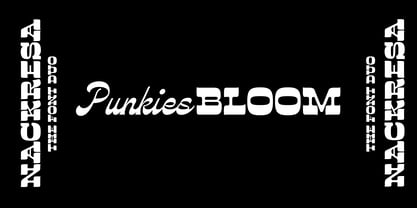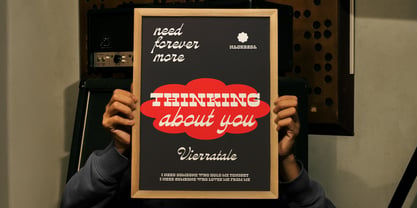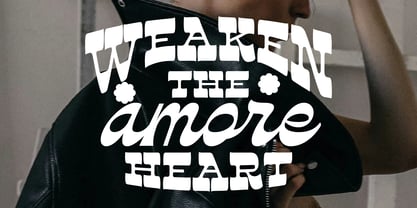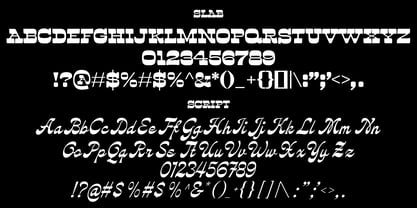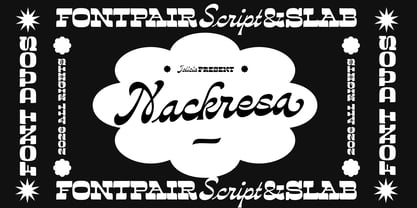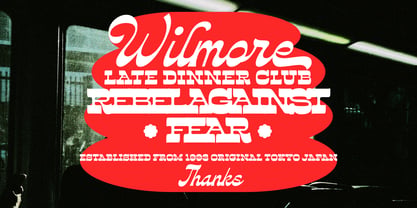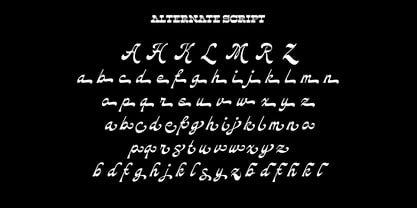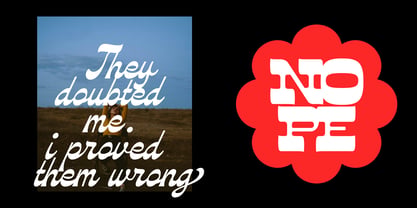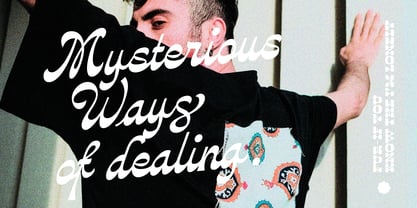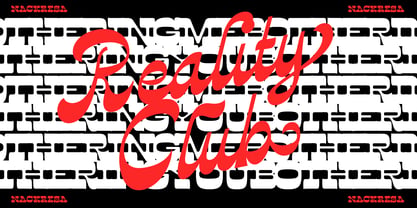
Nackresa
by Jolicia Type
The Nackresa Font Family was designed by Laire Banyu and published by Jolicia Type. Nackresa contains 2 styles and family package options. More about this family
Nackresa is a bold and expressive font duo that seamlessly combines a reverse-contrast slab serif with an elegant script, creating a powerful visual identity. This typeface is designed to balance structural strength with fluid expression, delivering a distinctive and memorable character. The slab serif style showcases a unique reverse-contrast design, resulting in an experimental, vintage-modern aesthetic that commands strong visual impact. In contrast, the flowing script introduces a soft, personal, and artistic touch, infusing emotion and personality into every composition. With its striking contrast, refined details, and unmistakable identity, Nackresa transcends the typical font; it serves as a visual statement for designers seeking to be bold, expressive, and unapologetically original. Ideal for branding, editorial design, and web applications, Nackresa is the perfect choice for those looking to make a lasting impression. This versatile font family is suitable for a variety of projects, ensuring that your designs stand out with confidence and creativity.
Designers: Laire Banyu
Foundry: Jolicia Type